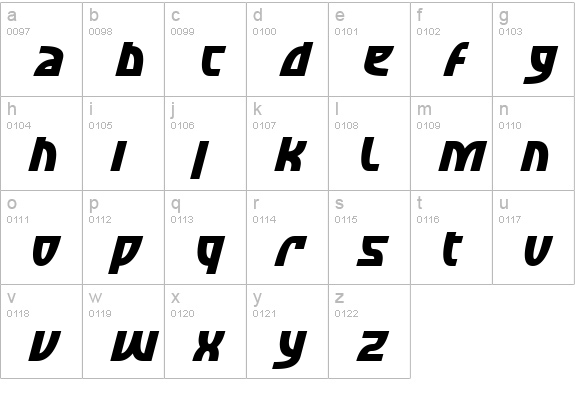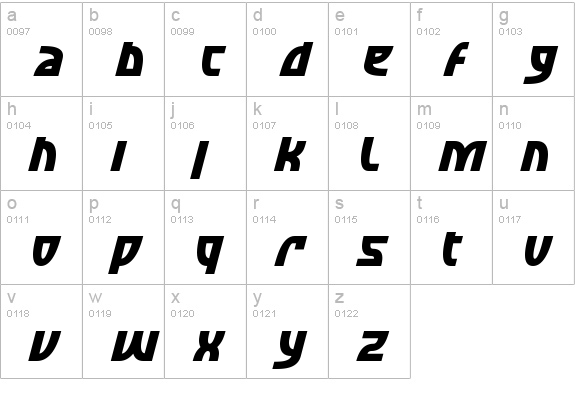
SF Retroesque Bold Italic Font Details
SF Retroesque Bold Italic is a strong, high-contrast, italic variant in the SF typeface family \xE2\x80\x94 well suited to headlines, attention-grabbing titles, and strong calls-to-action.
SF Retroesque Bold Italic is a captivating and stylish font that effortlessly combines elements of the past with a touch of modernity. Its bold and italicized design exudes an air of confidence and sophistication, making it the perfect choice for projects that require a strong visual impact. This retro-inspired font pays homage to the iconic typographic styles of the mid-20th century, while also adding a contemporary twist, resulting in a truly unique and versatile typeface. Its distinctive letterforms are filled with character and evoke a sense of nostalgia, transporting the viewer back to a time of classic elegance and timeless design. The SF Retroesque Bold Italic font is not only visually stunning but also incredibly functional. Its carefully crafted letterforms ensure excellent legibility, making it an ideal choice for a wide range of design applications. Whether you're designing a vintage-inspired logo, crafting a retro-themed poster, or creating an eye-catching headline, this font will effortlessly enhance your project with its bold and italic style. One of the best features of SF Retroesque Bold Italic is that it is available for free download at FontsMarket.com. This means that you can easily access and utilize this remarkable font in your design projects without any restrictions. Its freely available nature allows designers, artists, and enthusiasts alike to explore the creative possibilities that this font offers, adding a touch of retro charm to their work. So, if you're looking to add a dash of retroesque flair to your next project, look no further than SF Retroesque Bold Italic. Download it for free at FontsMarket.com and let its bold and italicized letterforms transport you to a bygone era of style and elegance.